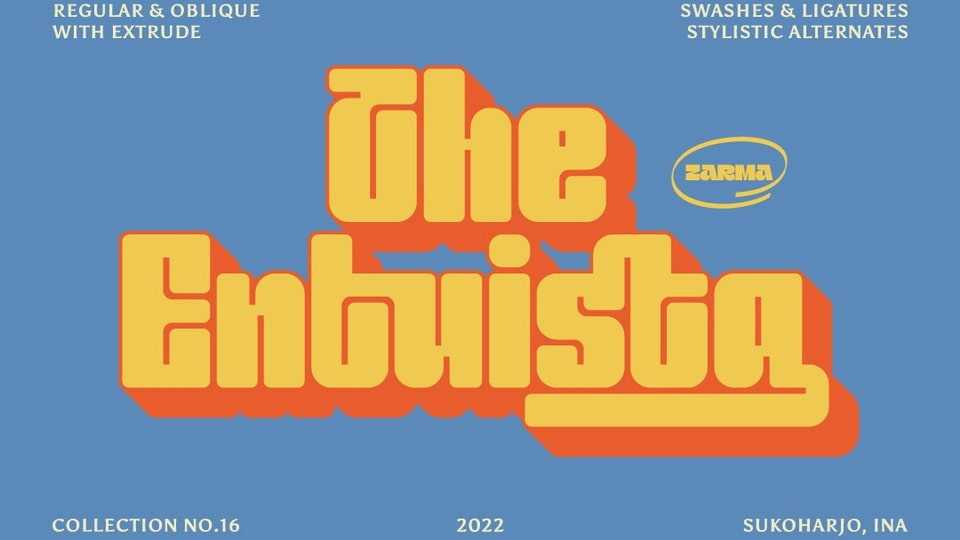
Download Entuista font, a squary and chunky typeface with a touch of unique retro style. Enthuista is perfect to make amazing stand out designs.
Designer: Zarma Type Foundry